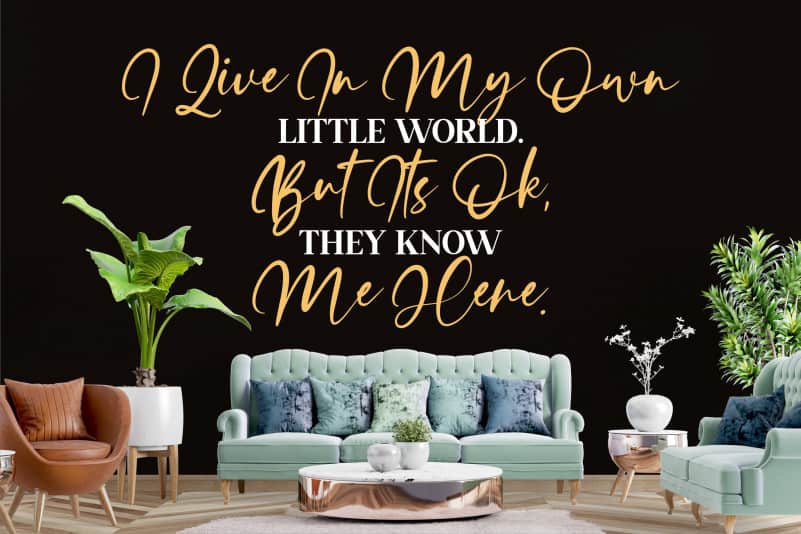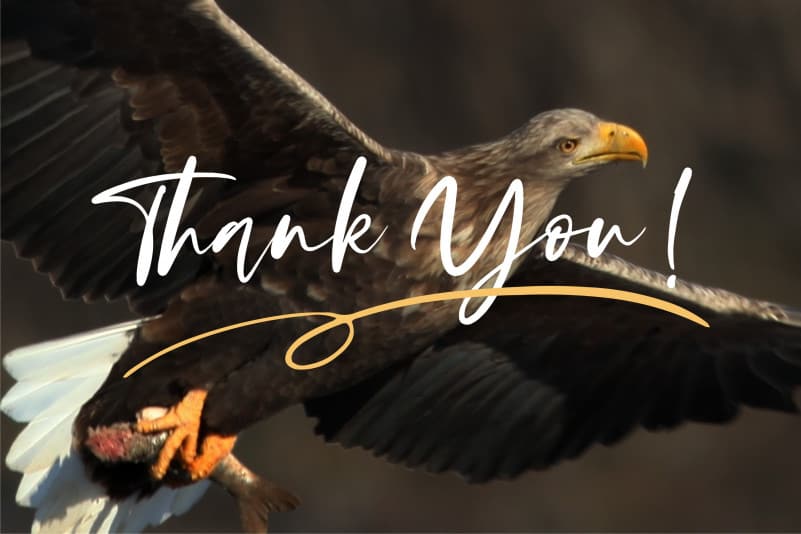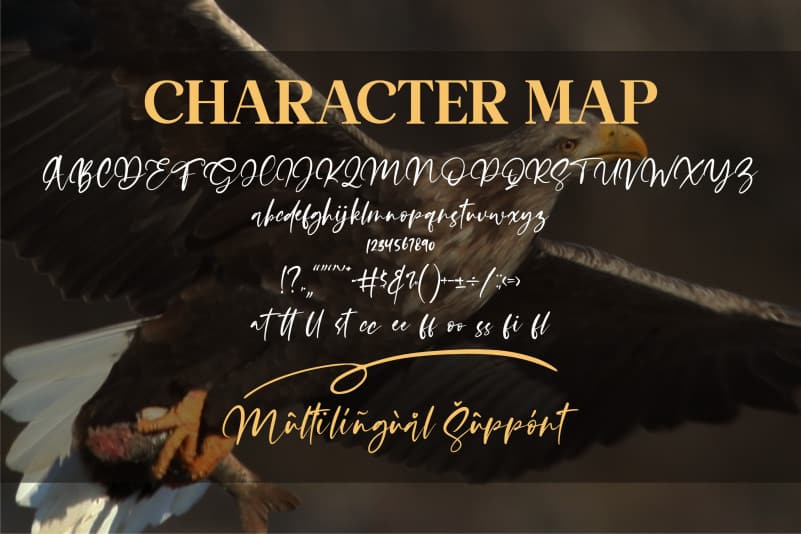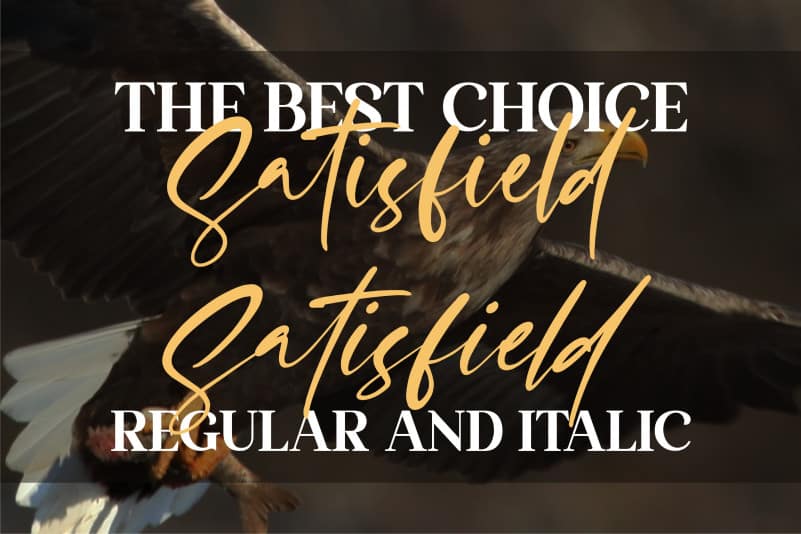
Satisfield Script Font
Satisfield Script Font, from Letterena, is a signature font, suitable for any projects such as: logos, branding projects, homeware designs, product packaging, mugs, quotes, posters, shopping bags, t-shirts, book covers, name card, invitation cards, greeting cards, label, photography, watermark, special events, and all your other luxury projects that need a script Signature taste.